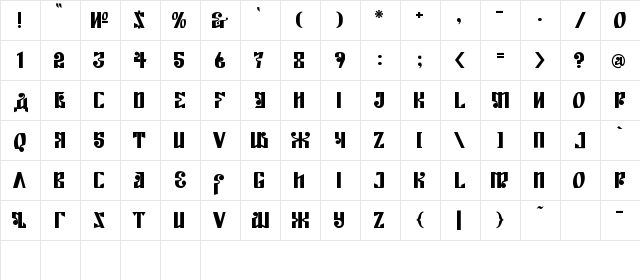
Complete Kremlin Empire Regular glyph index. Displaying only characters natively supported by Kremlin Empire Regular font.
Kremlin Empire is a composed and adaptable typeface that performs quietly and consistently across a wide range of design contexts.